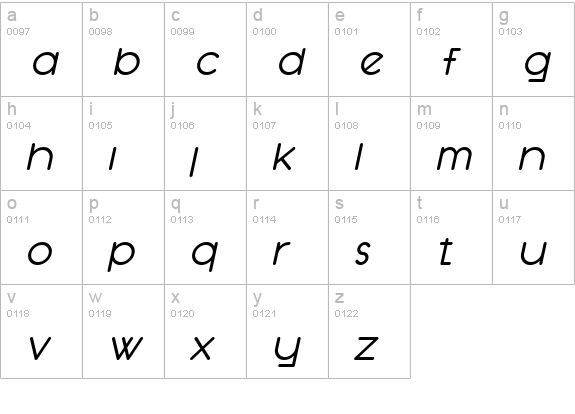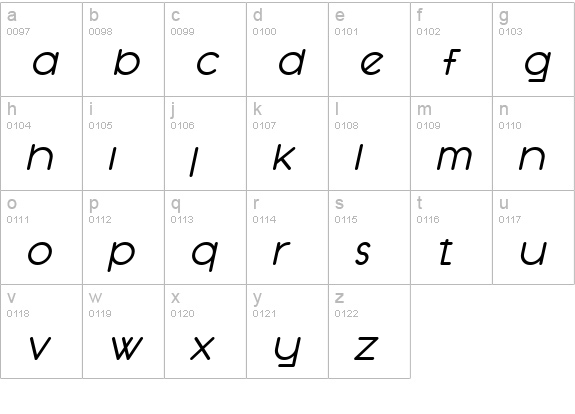
SF Orson Casual Medium Oblique Font Details
SF Orson Casual Medium Oblique is a balanced, medium-weight, italic variant in the SF typeface family \xE2\x80\x94 well suited to sub-headlines, navigation, and balanced editorial work.
The SF Orson Casual Medium Oblique font is a stunning typographic masterpiece that effortlessly combines a casual and contemporary style. Its medium weight strikes the perfect balance between boldness and elegance, making it suitable for a wide range of design projects. With its slanted, oblique design, this font adds a touch of dynamism and modernity to any text. Each character is meticulously crafted with smooth curves and clean lines, resulting in a stylish and sophisticated appearance. Whether used for headlines, logos, or body text, the SF Orson Casual Medium Oblique font captivates viewers and leaves a lasting impression. One of the most remarkable aspects of this font is that it is free! Yes, you read that right. This incredible font is freely available for download at FontsMarket.com. This means that designers, creatives, and enthusiasts alike can effortlessly access this exceptional typeface without any cost implications. The SF Orson Casual Medium Oblique font is a versatile and reliable choice for designers seeking a unique and eye-catching font. Its effortless charm and modern appeal make it suitable for a wide range of design projects, from websites and advertising materials to packaging and branding. So, why wait? Take advantage of this incredible opportunity to enhance your design projects with the SF Orson Casual Medium Oblique font. Download it for free today at FontsMarket.com and unlock a world of creative possibilities.